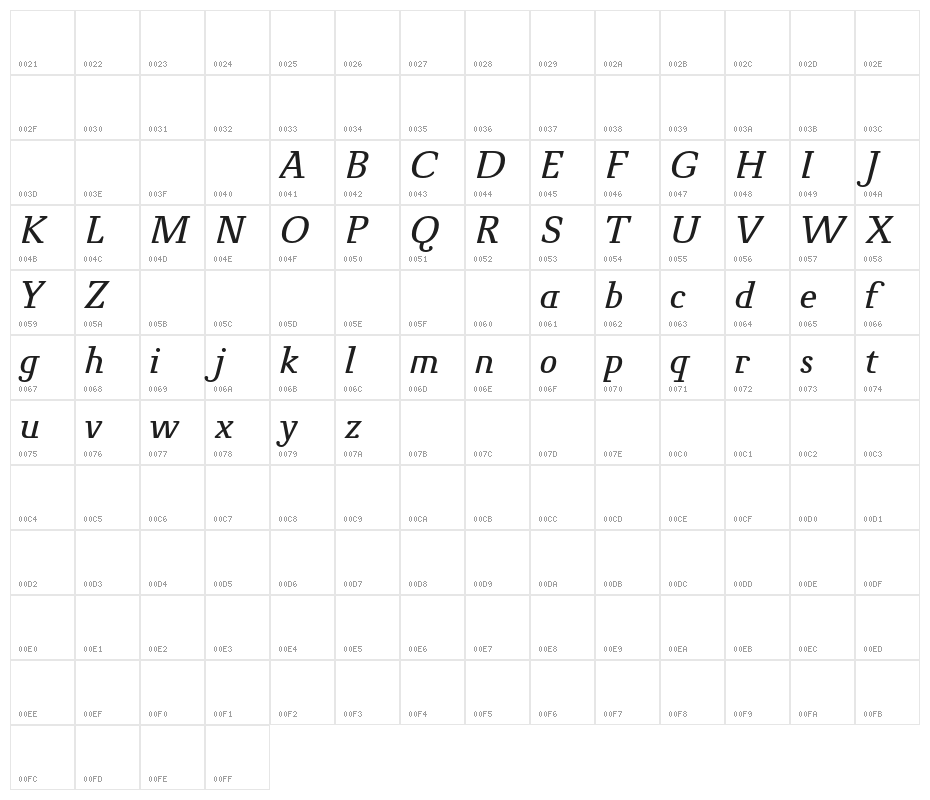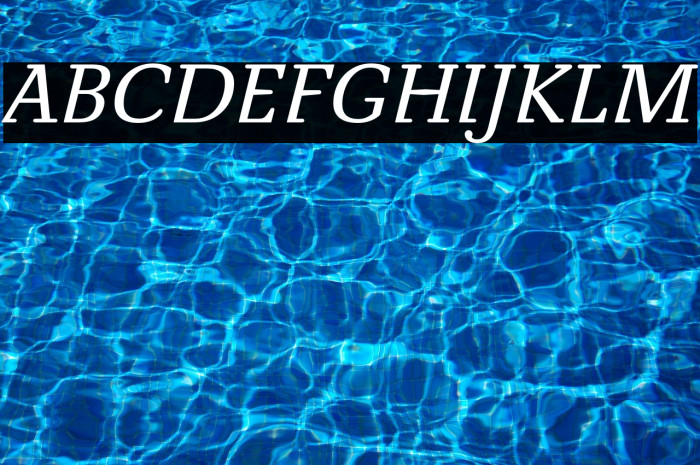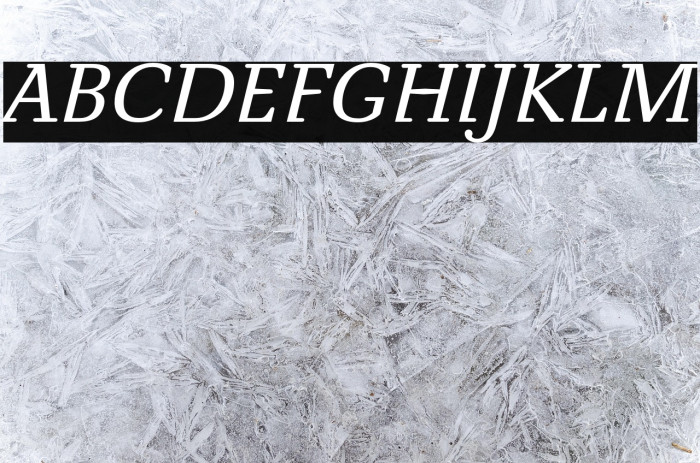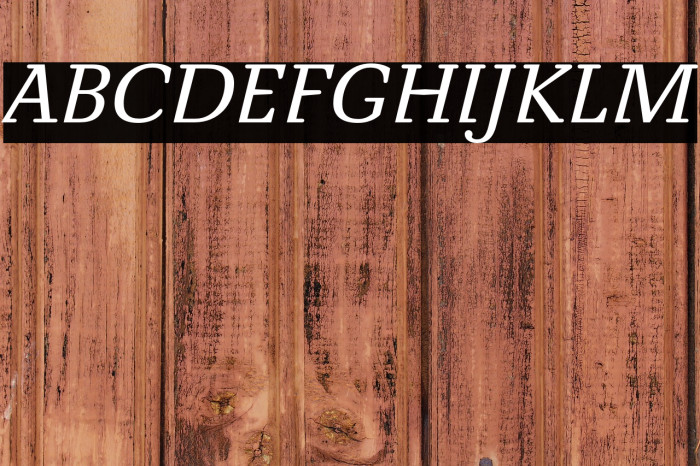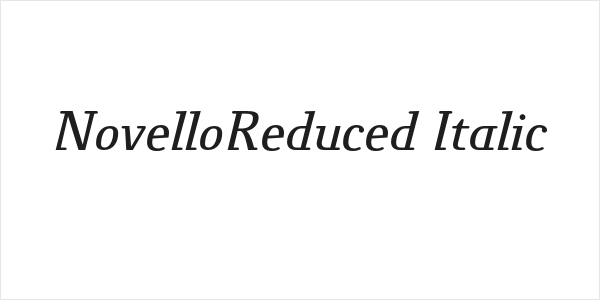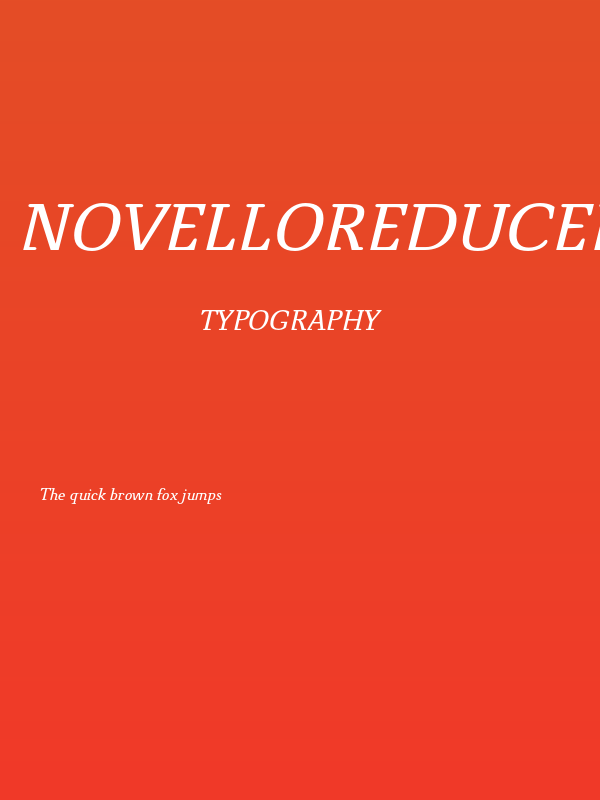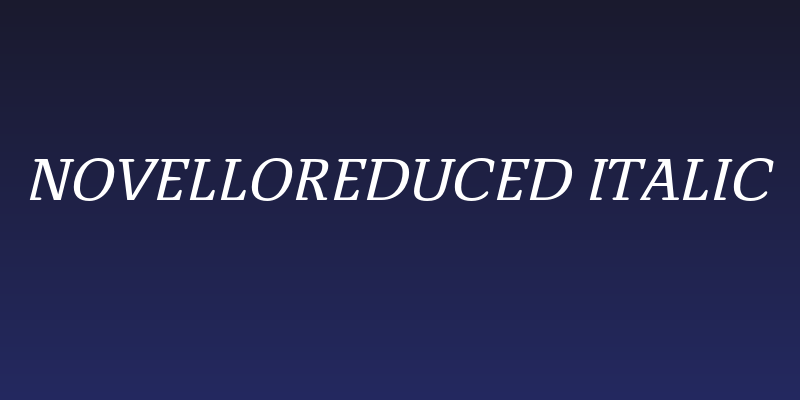
NovelloReduced-Italic Font
NovelloReduced-Italic Description
This font features an elegant italic style with a classic serif design. The characters are slightly slanted, giving a sense of motion and sophistication. The serifs are pronounced yet refined, adding a touch of formality and tradition. The uppercase letters are tall and commanding, while the lowercase letters maintain a balanced and harmonious appearance. The font's overall design is suitable for conveying elegance and professionalism, making it ideal for formal documents and branding. The spacing between characters is well-proportioned, ensuring readability without sacrificing style.
| Proposed Projects | Ideal for formal invitations, branding, editorial design, and elegant packaging. |